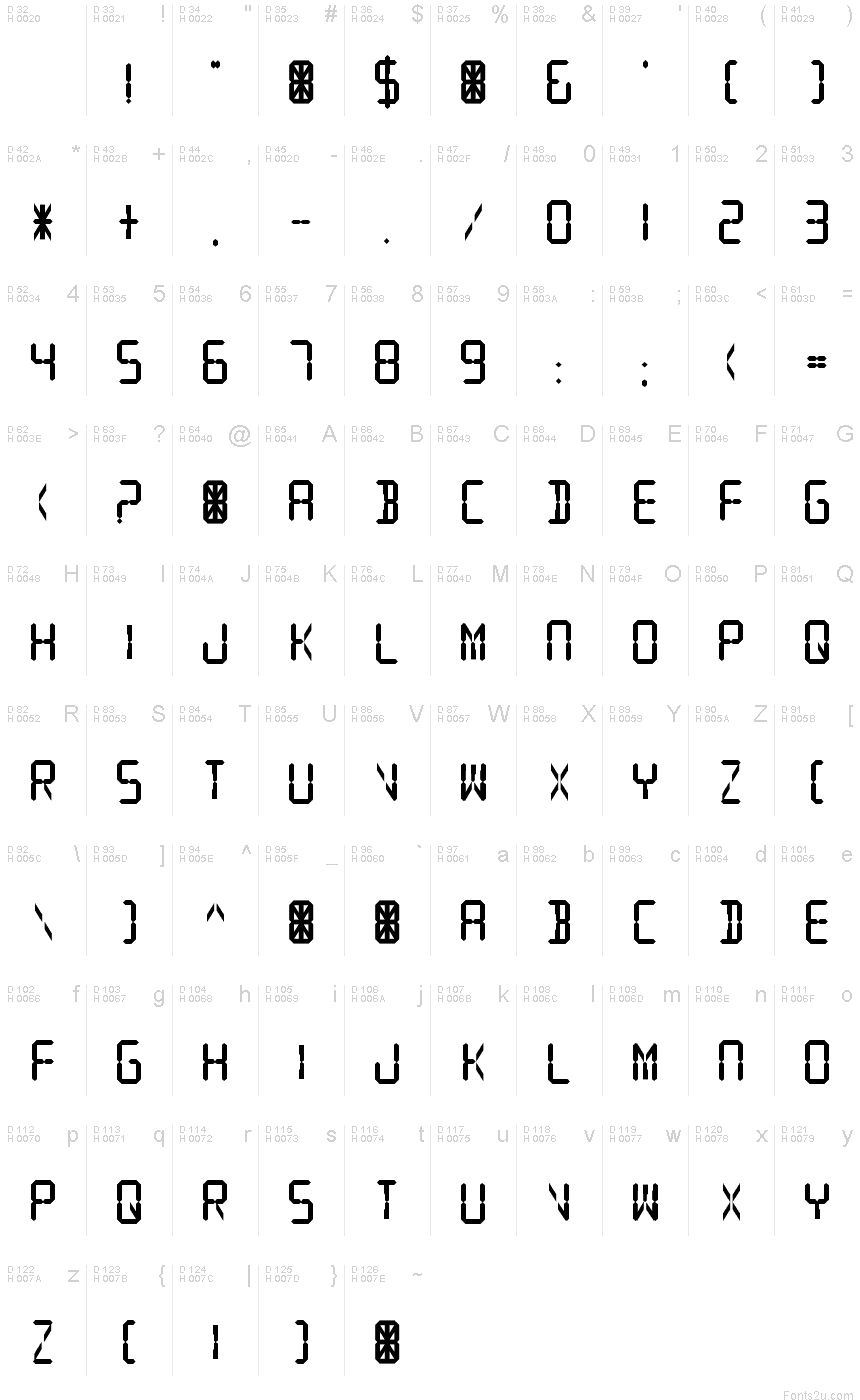
Digital Readout Thick Upright is a free digital display font by ShyWedge, modeled on segmented electronic readouts with a much more substantial stroke. Its upright letters are tall and tightly engineered, with clipped corners and narrow breaks at each join. Broad horizontal bars give the design a firm industrial silhouette.
An arcade game interface is its clearest setting, since the segmented forms immediately suggest scoreboards and control panels. The same electronic character fits science-fiction posters, technology packaging, and music merchandise, especially for subjects tied to retro hardware and machine displays.
Digital Readout Thick Upright